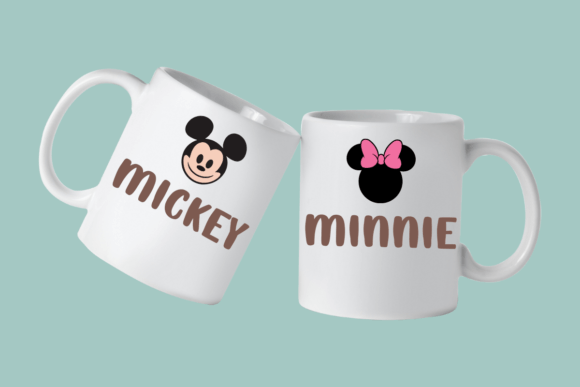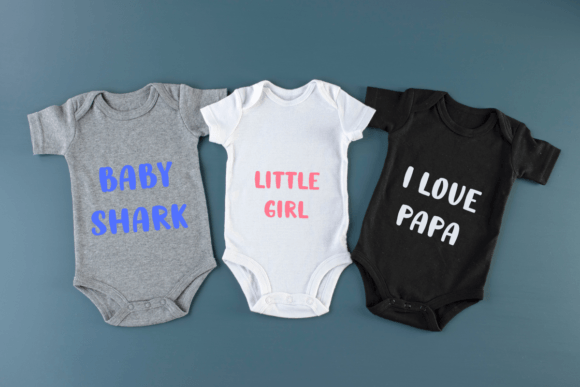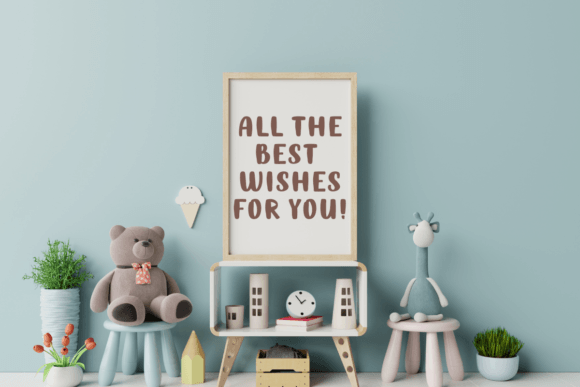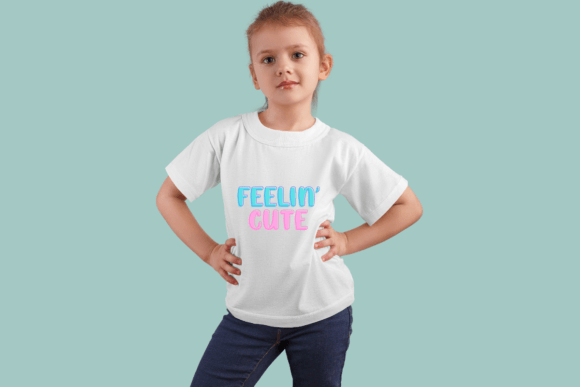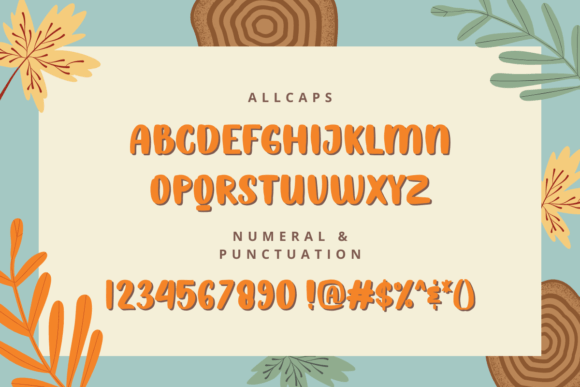
The Birth of a New Favorite: Baby Moly Font
Have you ever been browsing through your favorite design inspiration websites, and suddenly, a font catches your eye? Maybe it’s the quirky charm, or the way it makes you feel all warm and fuzzy inside. That’s exactly what happened to me when I stumbled upon the Baby Moly Font. Its friendly and approachable vibe immediately grabbed my attention, and I knew I had to learn more.
Baby Moly Font is a display font designed to spread positivity and character wherever it goes. Whether you’re looking to add a touch of whimsy to your branding, or create eye-catching quotes and headings, this font is the perfect companion. With its unique style and charm, Baby Moly Font is a valuable addition to any designer’s toolkit, helping to elevate their work and leave a lasting impression.
Baby Moly Font Key Features
- Unique Characteristics: Baby Moly Font features a unique, hand-drawn style with subtle imperfections, giving it a personal and whimsical touch.
Baby Moly Font Review
I recently had the chance to work with the Baby Moly font, and I must say it’s a lovely addition to any design project. Here are my thoughts:
- The font’s playful and whimsical feel is perfect for child-related projects or any design that requires a touch of innocence.
- The varying weights and styles within the font family make it versatile and easy to use.
- The font’s legibility is great, even at smaller sizes.
- The font’s rounded edges and soft curves make it easy on the eyes.
- The font might be too cutesy or overbearing for more serious or professional projects.
- The font’s rounded edges can make it difficult to read at very small sizes.
- The font family is relatively small, which may limit its overall usability.
Overall, I think Baby Moly is a great addition to any design library. While it may not be suitable for every project, it’s perfect for those that require a playful and innocent feel. With a little creativity and restraint, Baby Moly can add a lot of charm to any design.
Tips for Getting the Most Out of Baby Moly Font
Here are some tips for getting the most out of Baby Moly Font:
- Use the font in combination with other playful fonts to create a unique and eye-catching design.
- Experiment with different font sizes and colors to add visual interest to your design.
- Use the font in titles and headings to add emphasis and create a clear hierarchy of information.
Here are some common use cases for Baby Moly Font
Alternatives to Baby Moly Font
Great Vibes Font is a beautiful, elegant script font that is perfect for creating a soft, romantic feel. It’s ideal for use in wedding invitations, birthday cards, and other special occasions. When to use: romantic, elegant, and whimsical designs. Comparison: Great Vibes Font has a more flowing and connected feel compared to Baby Moly Font, which has a more playful and disconnected style.
Lobster Font is a fun, casual script font that is great for creating a laid-back, beachy vibe. It’s perfect for use in food menus, advertisements, and other casual designs. When to use: casual, beachy, and fun designs. Comparison: Lobster Font has a more rugged and playful feel compared to Baby Moly Font, which has a more delicate and refined style.
The recommended font size for optimal readability with the Baby Moly Font is between 12 and 14 points for body text, and 18 to 24 points for headings. However, this may vary depending on the specific design and intended audience.
Q: Does the Baby Moly Font include any special features or ligatures?
Yes, the Baby Moly Font includes a range of special features and ligatures to enhance typographic quality and readability. These include contextual alternates, swashes, and ligatures, which can be accessed through font software or manually in design applications.